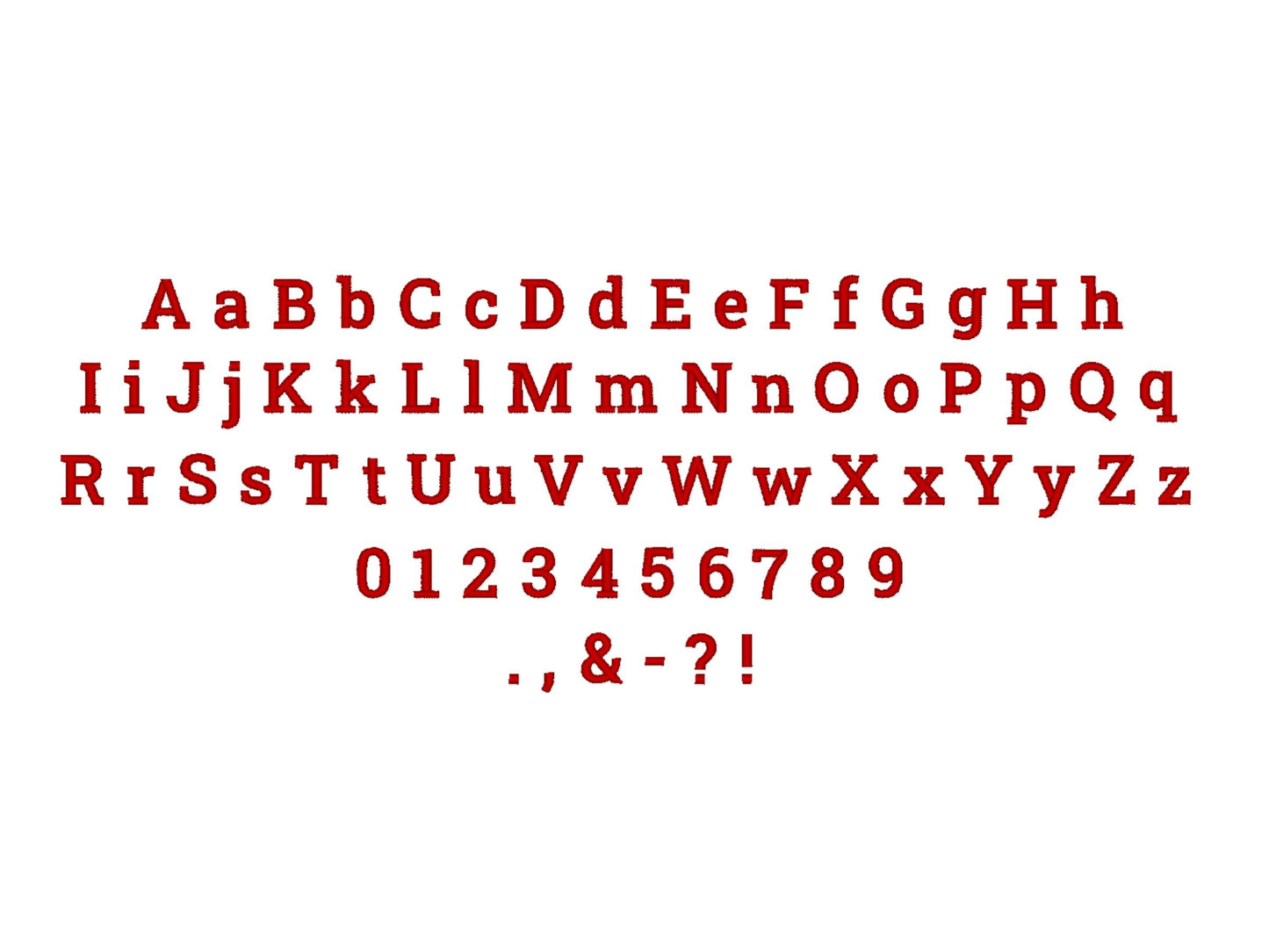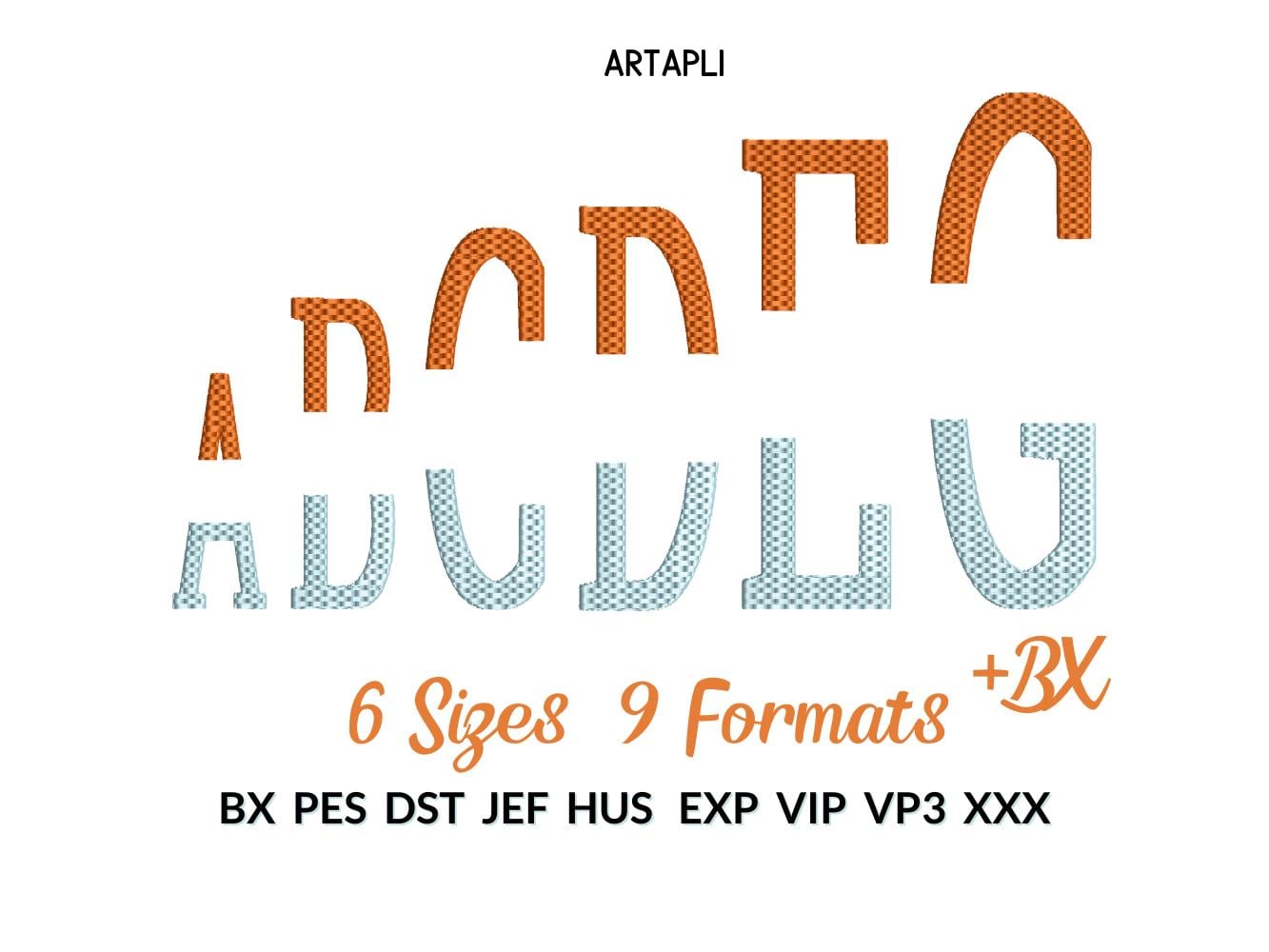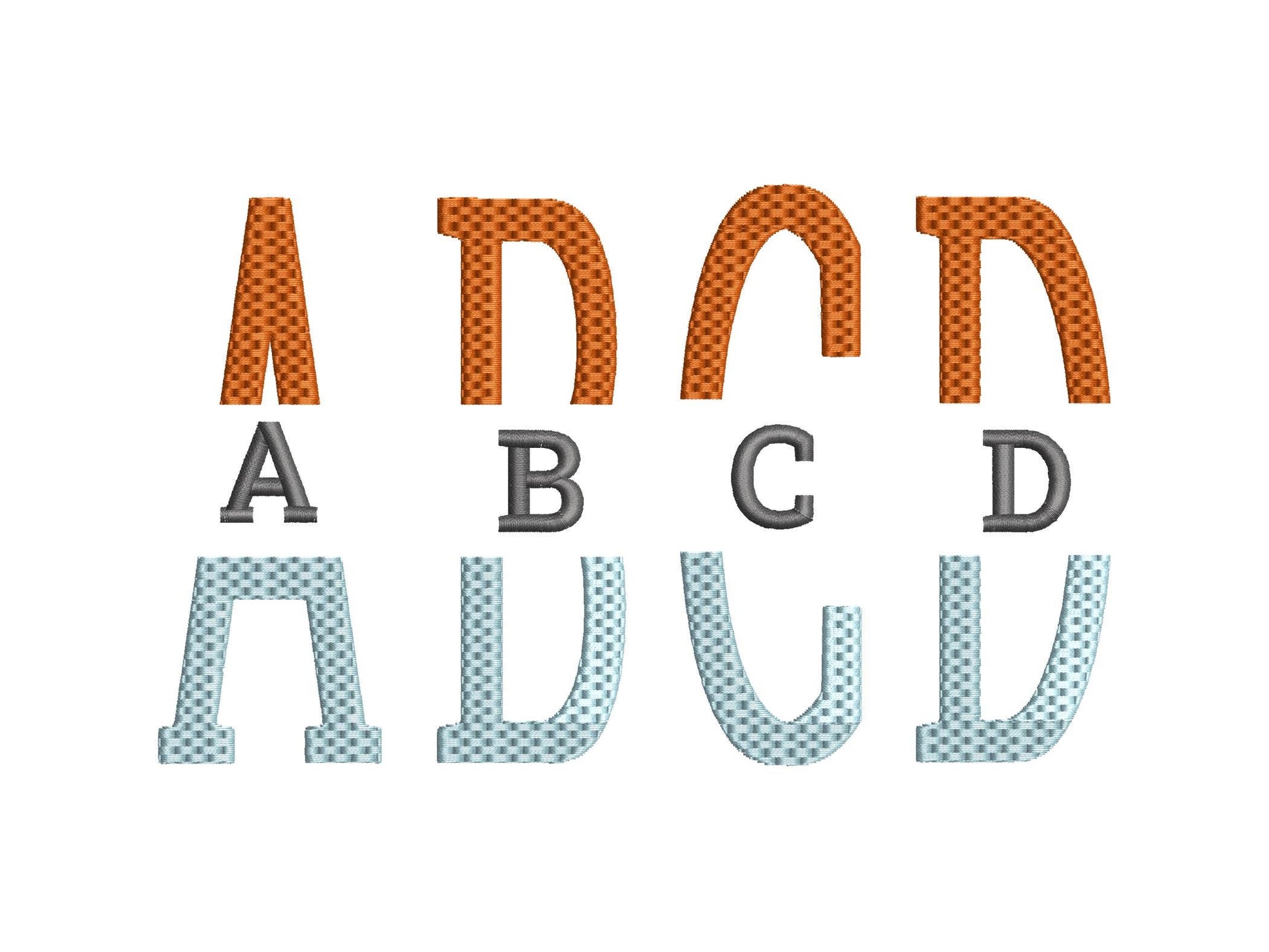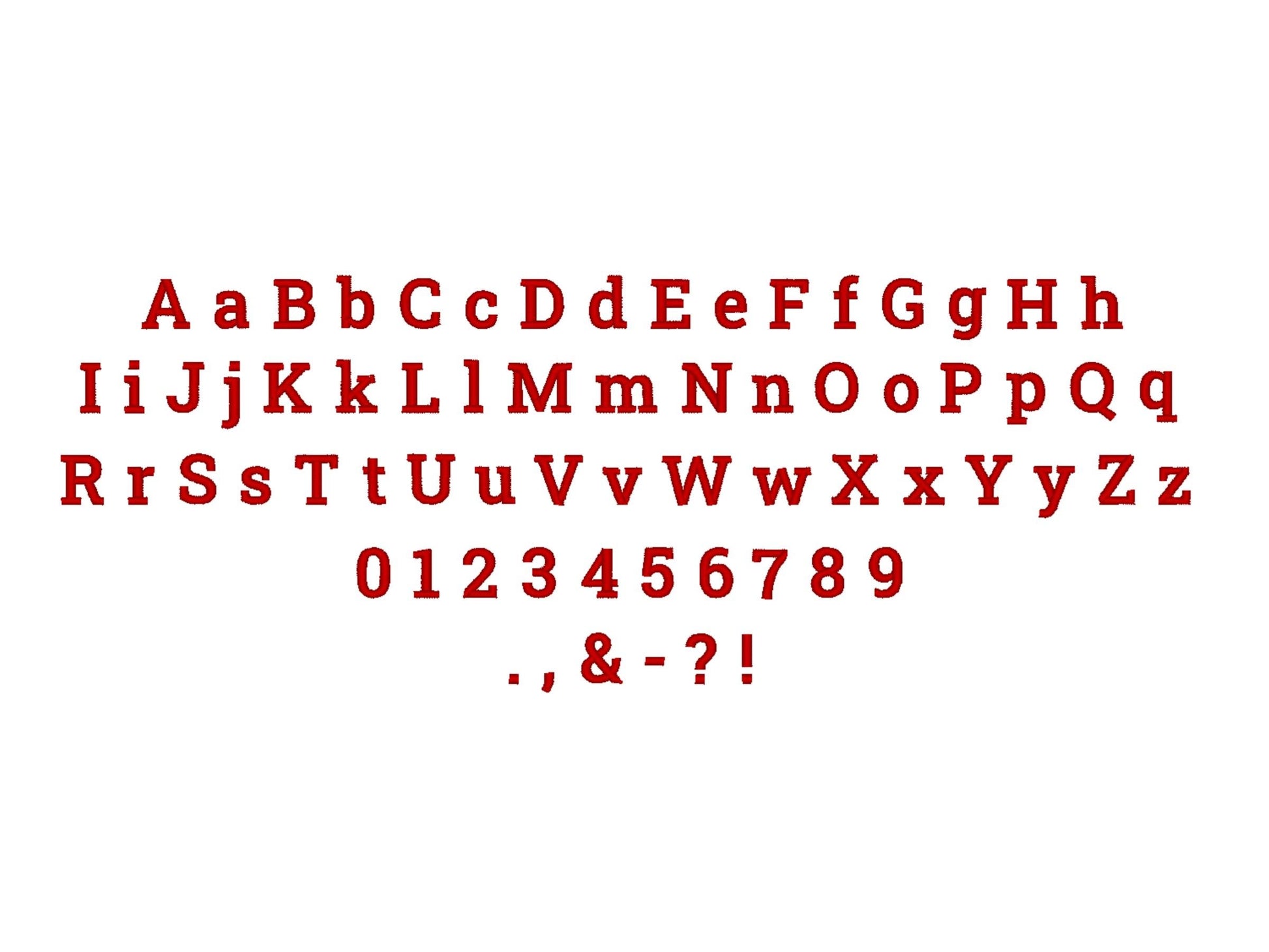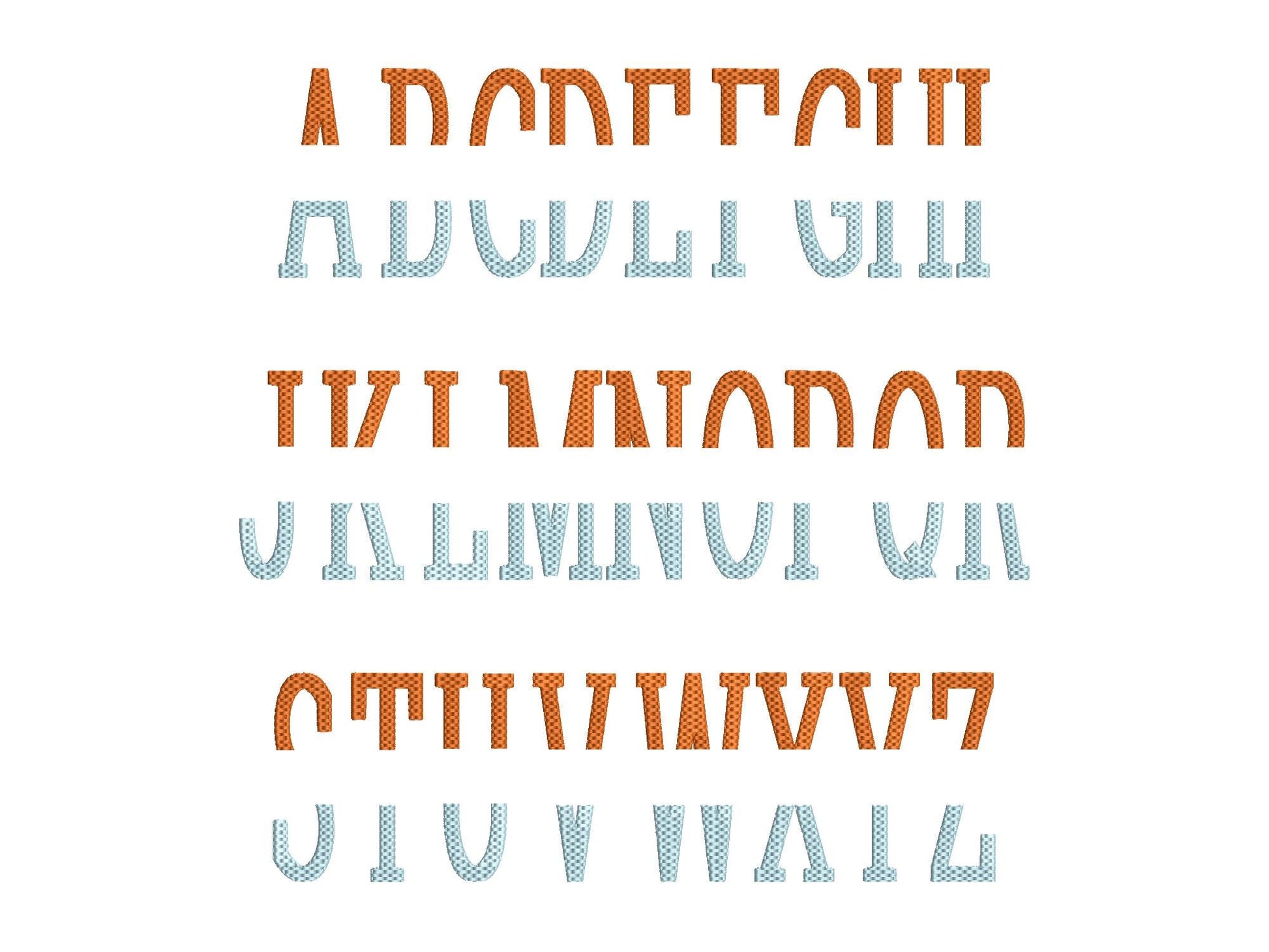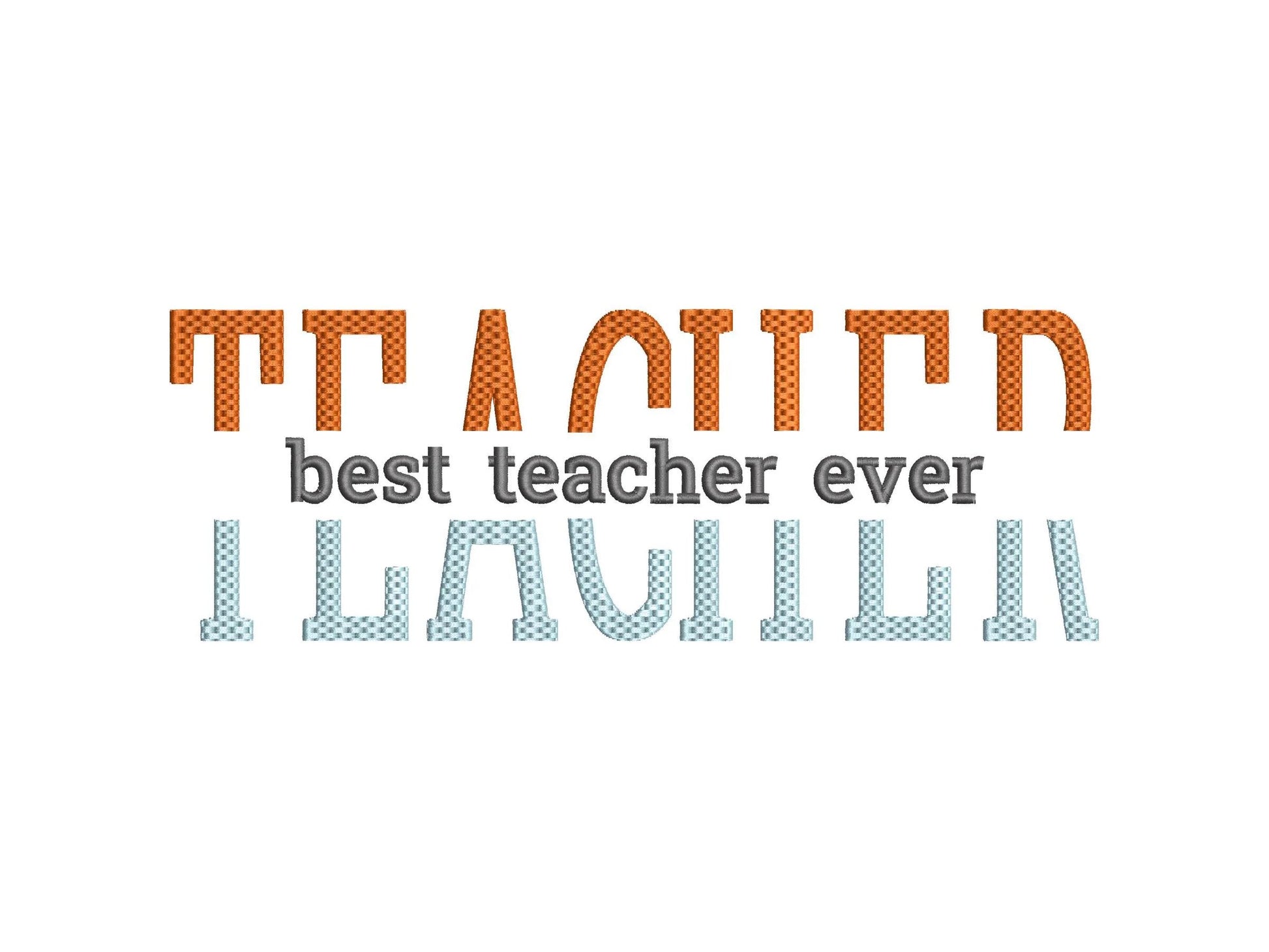
Waffle Stitch Narrow Split Font Set
The waffle stitch split font has uppercase A to Z in 3, 3.9, 4.6, 5, 6 and 6.5 inches. The block mini font has uppercase and lowercase letters, numbers and punctuation in nine sizes from 0.5 to 1.8 inches.
- Waffle split font, A-Z, 3 to 6.5 in
- Block mini font, 0.5 to 1.8 in
- Uppercase, lowercase, numbers, punctuation